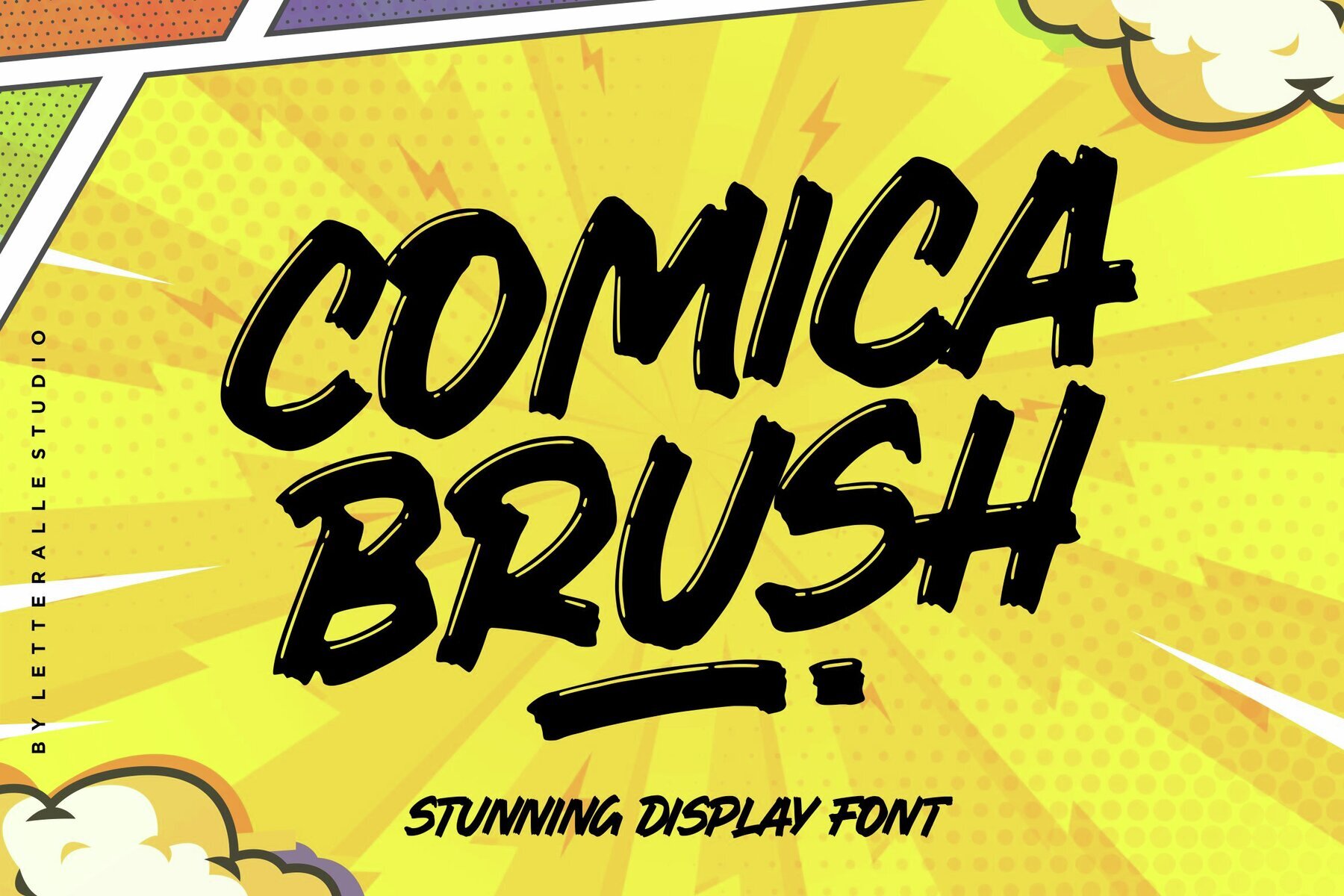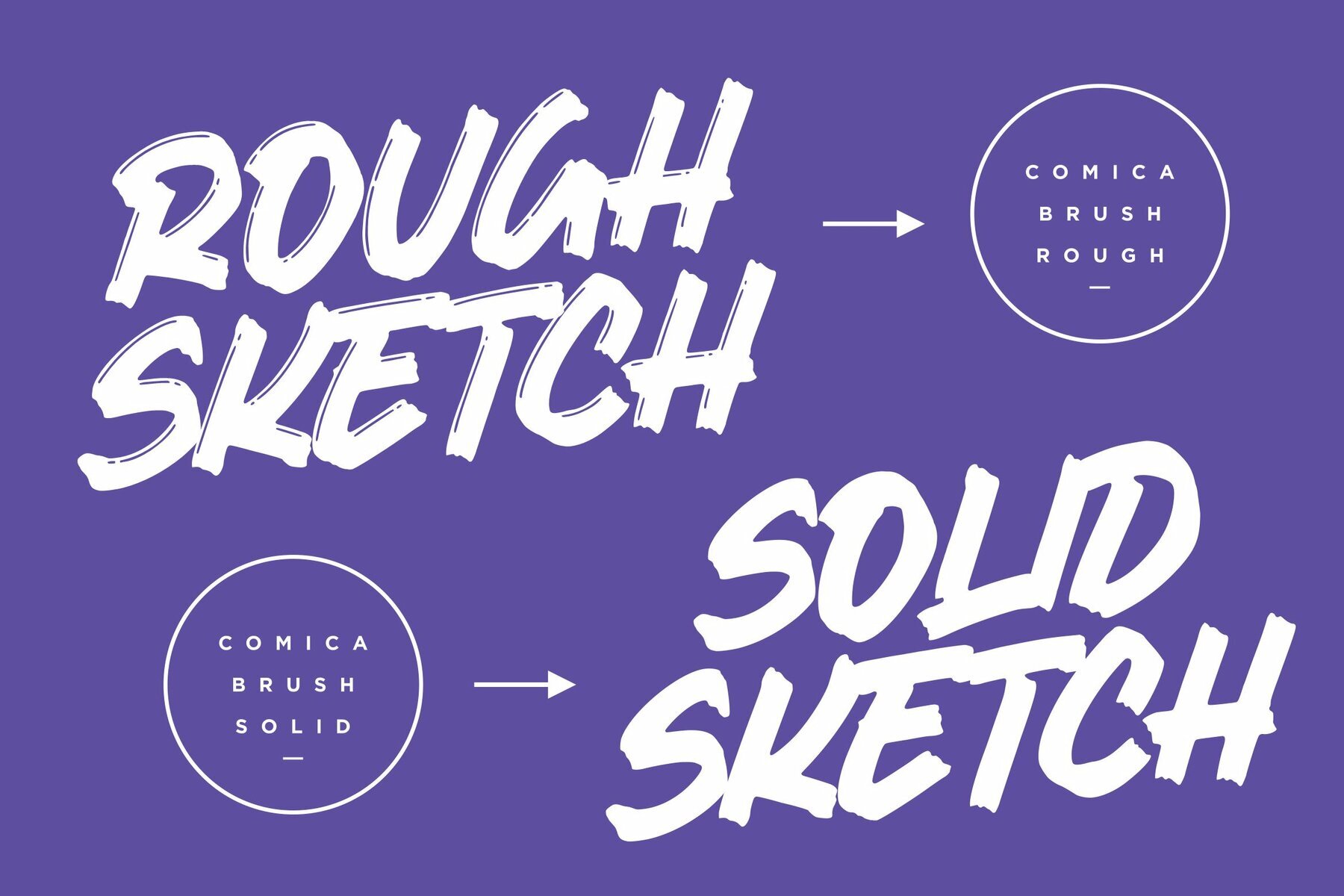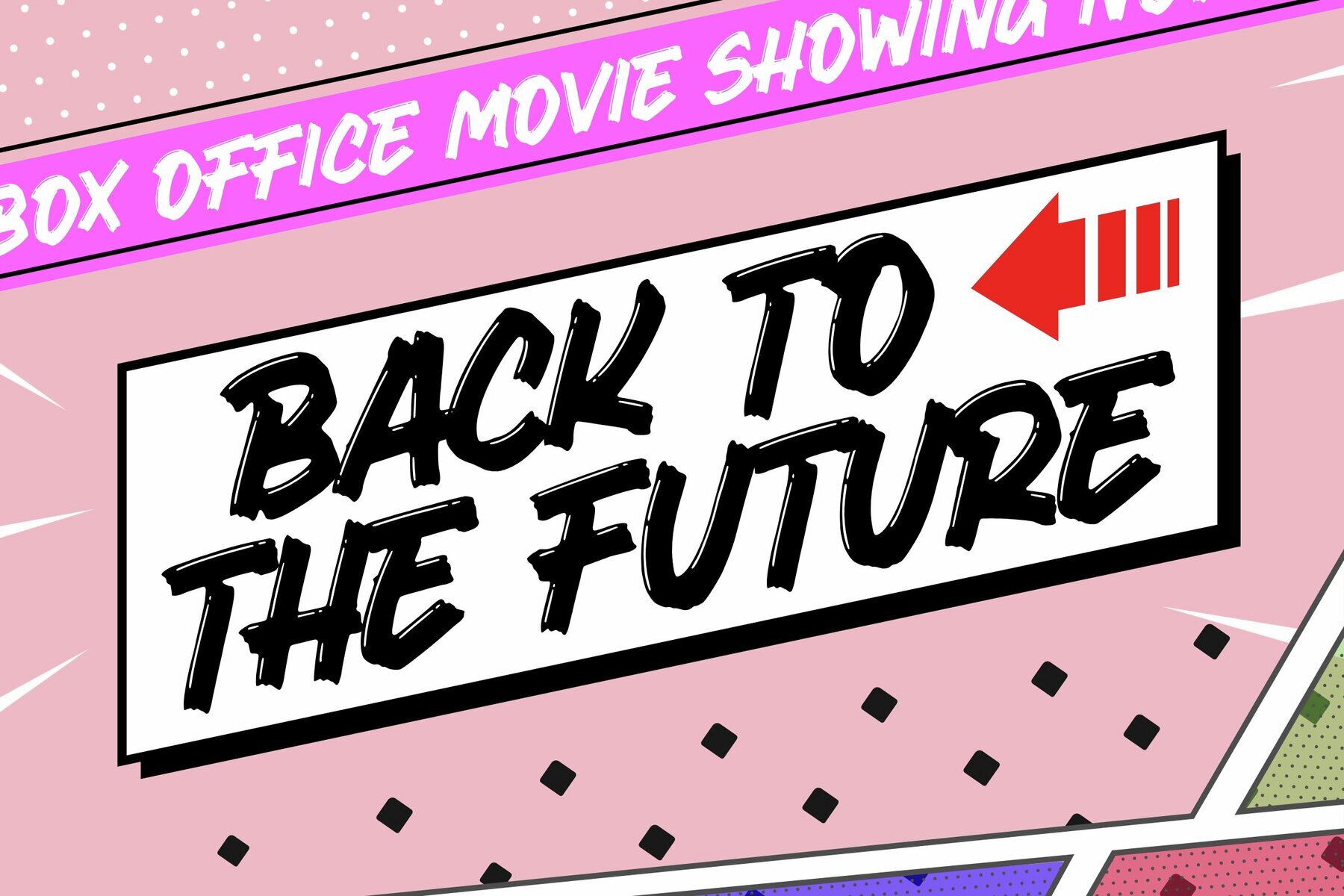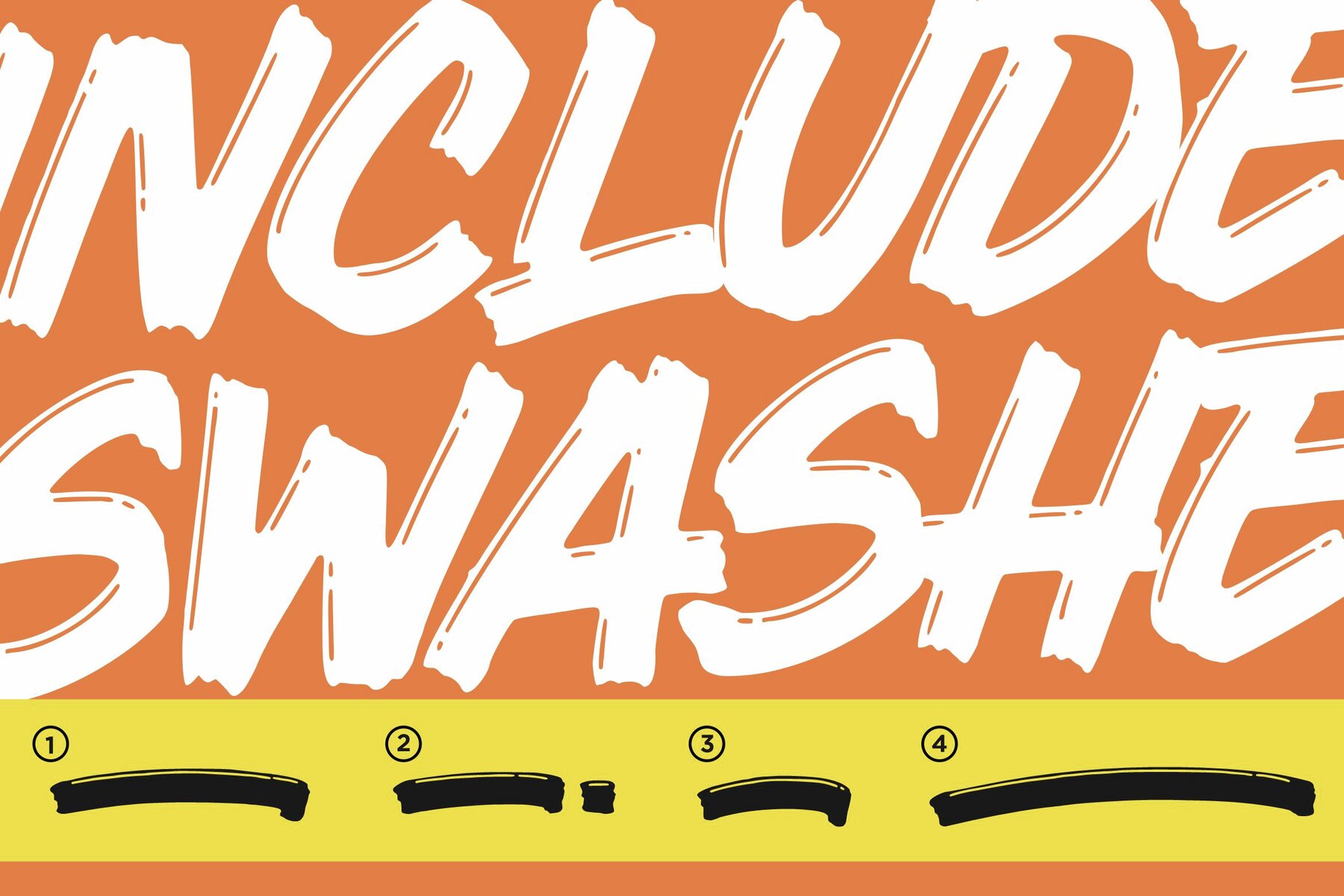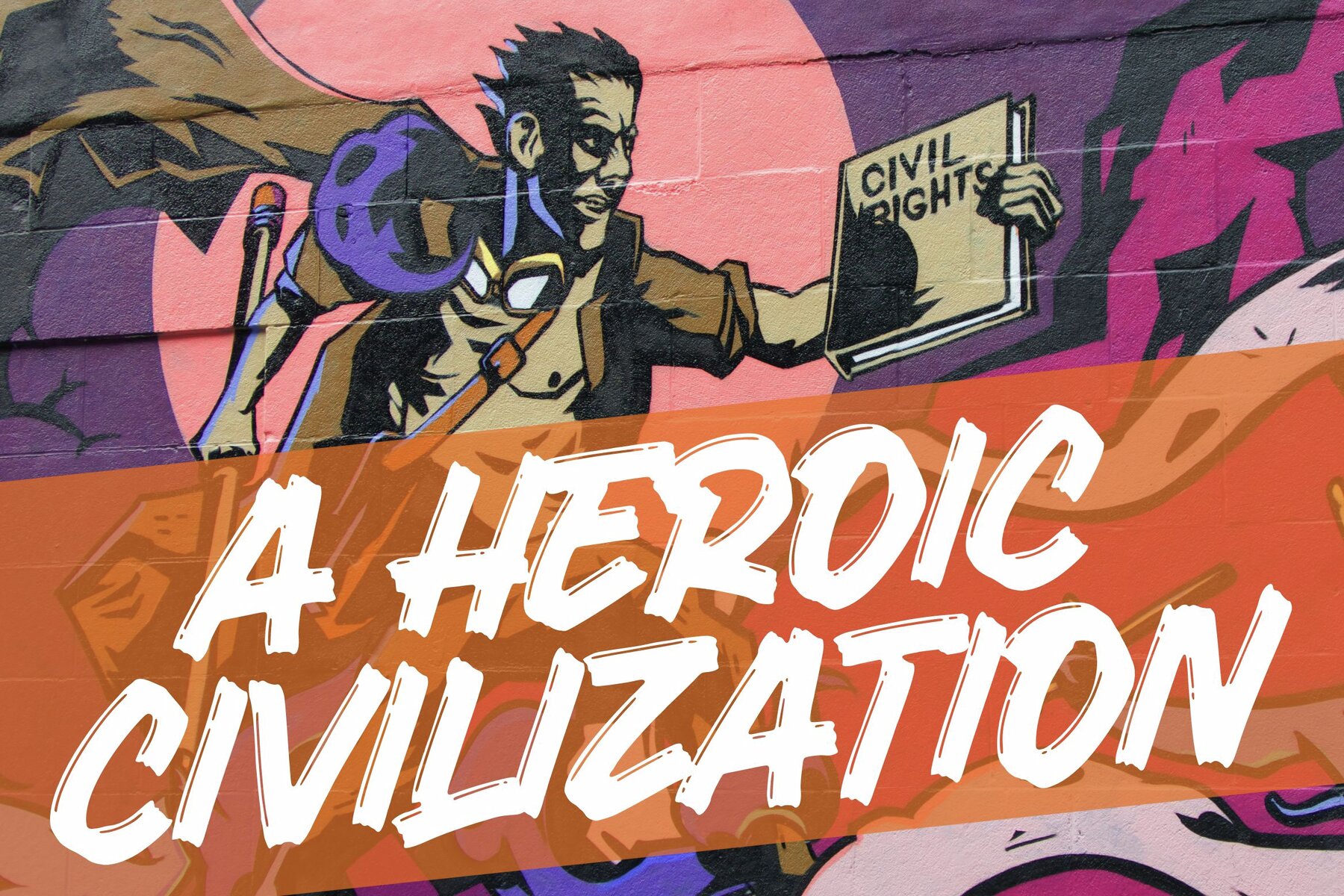
Comica Brush Font
An eye-catching, bold display font inspired by comic books and cartoons. Comica Brush offers a charming and striking look. Available in two styles—textured and solid—this font includes multilingual support and unique underline swashes. Simply type _1 to _4 to access the swashes. Perfect for merchandise, packaging, social media, ads, T-shirts, logos, events, and more.